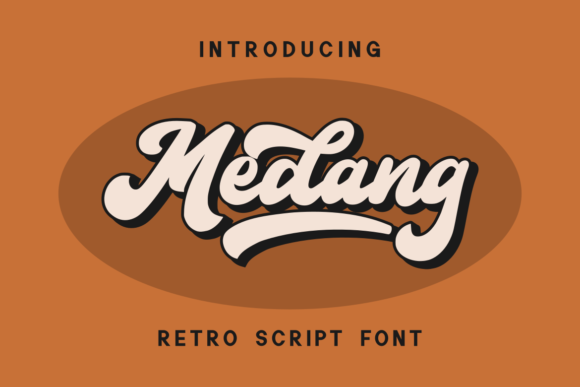
Journey into a world of nostalgia and charm with Medang Font, the captivating script font that will transport your designs to a bygone era. Inspired by the timeless elegance of retro styles, Medang Font effortlessly evokes a sense of heartfelt sentiments and heartfelt allure.
Unleash your creativity and let Medang Font guide you through a symphony of design possibilities, from enchanting invitations to heartfelt branding projects. Its graceful lines and playful curves effortlessly capture the essence of heartwarming memories, making it the perfect choice for any project that seeks to evoke a sense of nostalgic charm.
With Medang Font, you'll have access to a treasure trove of stunning glyphs and ligatures, meticulously crafted to add an extra layer of sophistication and charm to your designs. Effortlessly infuse your work with a touch of vintage flair, as Medang Font seamlessly blends the beauty of the past with the boundless possibilities of the present.
Experience the magic of Medang Font today and embark on a creative journey that will leave a lasting impression on your audience. Its versatility knows no bounds, making it the perfect companion for a wide range of projects, from heartfelt wedding invitations to whimsical social media graphics.
Indulge in the beauty of Medang Font and unlock a world of creative possibilities. Its vintage charm and timeless appeal will effortlessly elevate your designs, leaving your audience captivated and yearning for more. Embrace the allure of nostalgia and let Medang Font guide you towards design excellence.